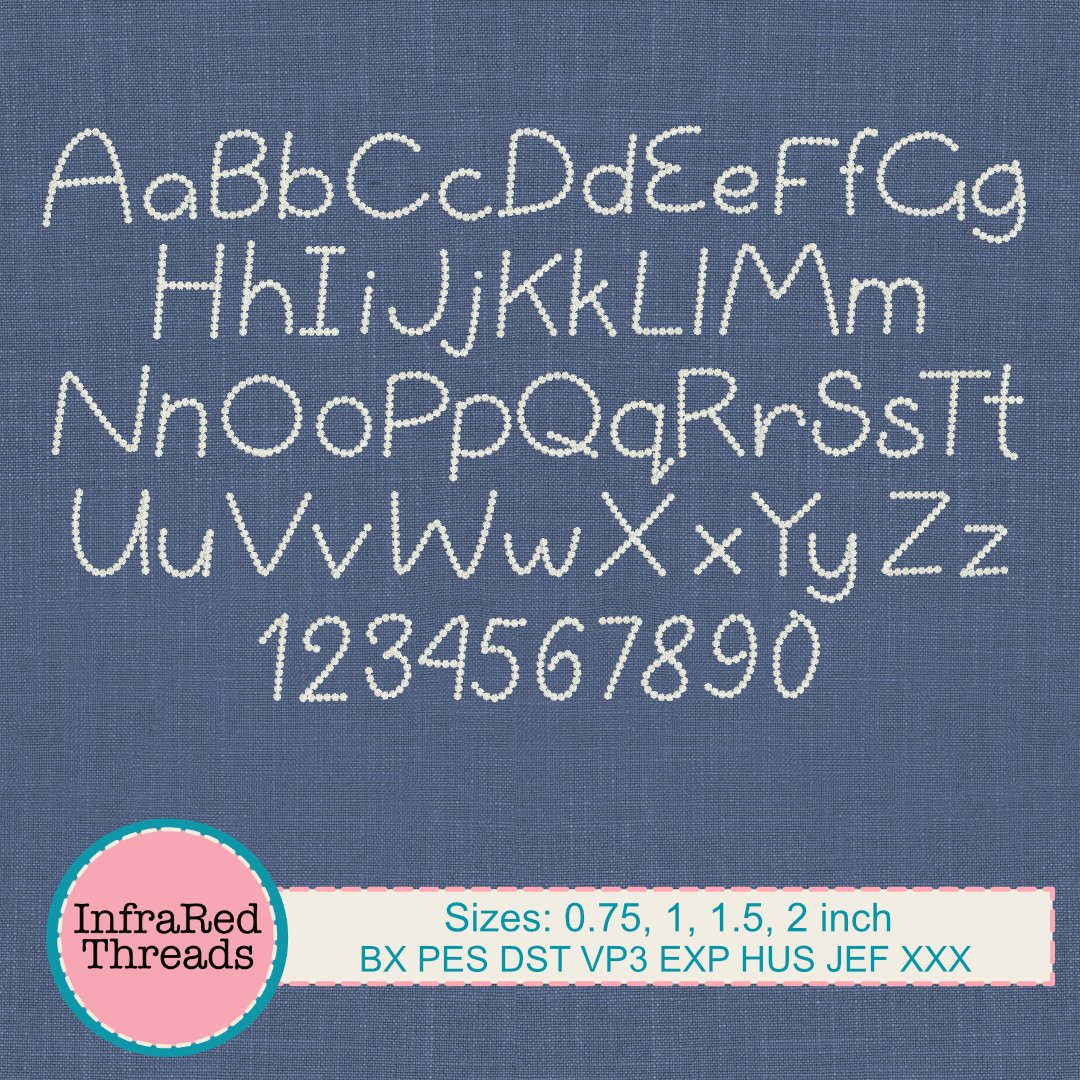
Daisy Embroidery Font – Pearl Stitch Alphabet in 4 Sizes
The Daisy Font is a delicate embroidery alphabet featuring a classic pearl-style stitch for a textured, dimensional finish. This clean and rounded lettering is ideal for monograms, children’s names, personalized gifts, and elegant stitched accents. The pearl detailing offers a refined look similar to satin pearls, making this font a versatile choice for a variety of projects. Includes uppercase and lowercase letters in four popular sizes, plus BX format for easy typing in Embrilliance software.